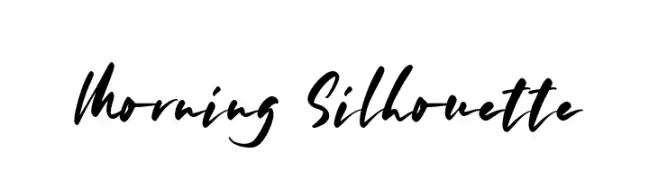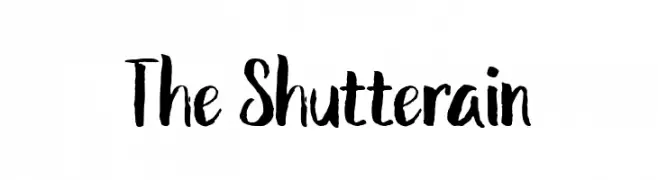
A lively and dynamic script font with fluid, cursive strokes.
A dynamic, brush-style font with expressive, fluid strokes.
A bold, expressive handwritten font with brush-like strokes.
A dynamic script font with fluid, interconnected strokes and an expressive style.
A bold, expressive script font with a hand-drawn, dynamic style.
An elegant script font with flowing curves and calligraphic details.
A flowing, elegant script font with a natural handwritten style.
A bold, cursive font with flowing, interconnected letters and elegant style.
A dynamic, cursive font with fluid, interconnected strokes.
A bold, italicized font with sharp, angular edges and a dynamic appearance.